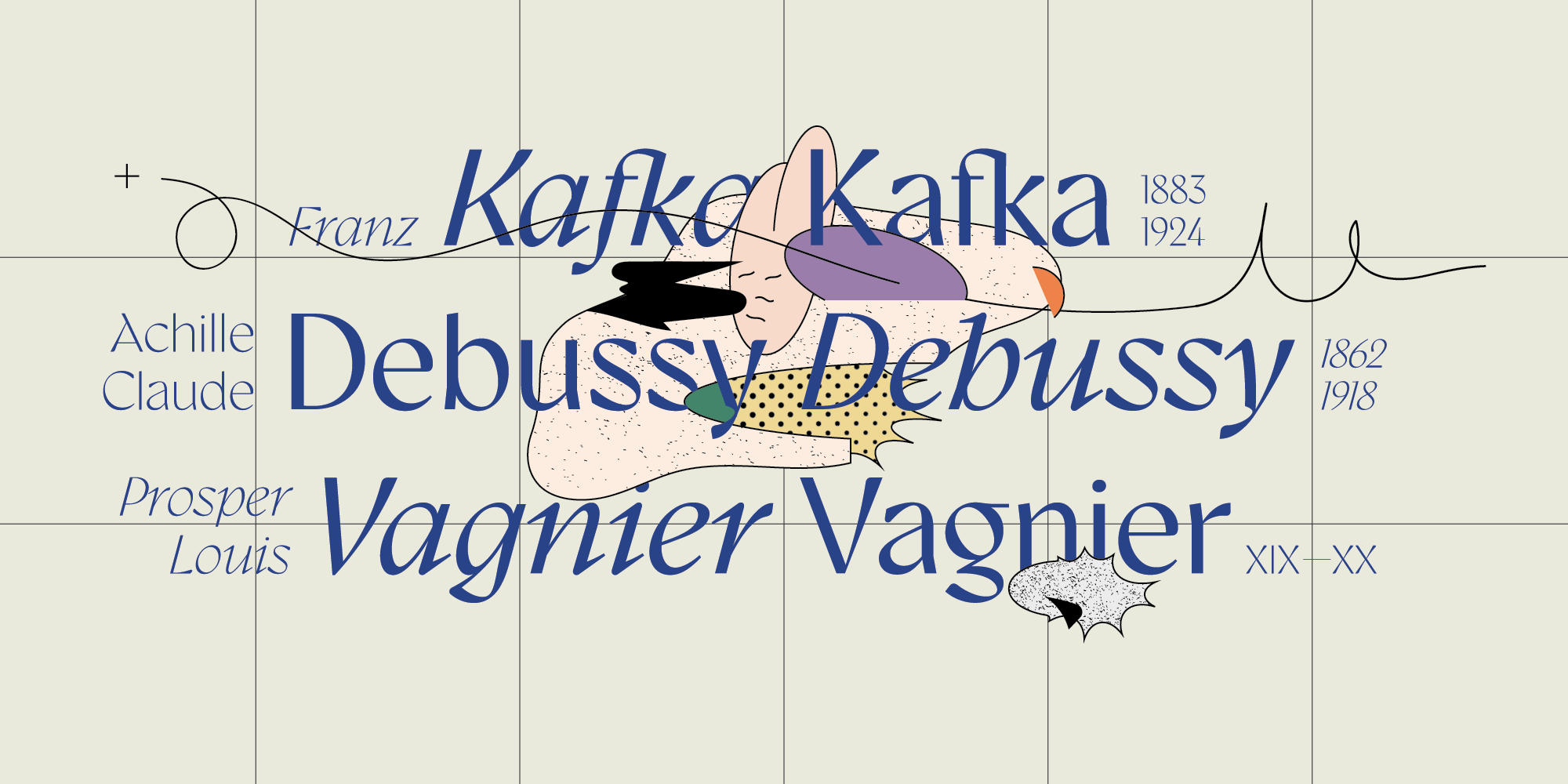
Gyst Free Download
Gyst Font Free Download
Gyst Font excels in various design applications including minimalist branding, clean web interfaces, contemporary corporate identities, modern app designs, sleek product packaging, architectural presentations, tech startup materials, and sophisticated editorial layouts. This streamlined typeface adapts perfectly to both cutting-edge digital platforms and refined print materials, making it ideal for designers seeking essential clarity and organized sophistication in their visual communications.
Gyst Font generates excitement among design professionals due to its essential character and systematic styling that instantly conveys organization and purposeful design. The font's clean letterforms and structured proportions create an immediate sense of clarity and methodical precision. Its systematic personality makes it particularly appealing for brands wanting to communicate efficiency, organization, and essential functionality in their visual identity.
The Gyst Font family encompasses multiple weights and styles including Regular, Bold, Light, Medium, and Condensed variations. Each family member maintains systematic design principles while offering distinct organizational characteristics. The Light weight provides subtle essential elegance for clean applications, while the Bold version delivers strong impact for organized headlines and structured brand statements.
Systematic designers frequently choose Gyst Font Free Download for projects requiring both essential authenticity and functional distinction. This typeface demonstrates exceptional effectiveness across organizational industries including productivity apps, consulting firms, organizational tools, and efficiency brands. Its essential character allows organizations to communicate systematic clarity while maintaining excellent readability and organized visual appeal that helps audiences focus on what matters most.